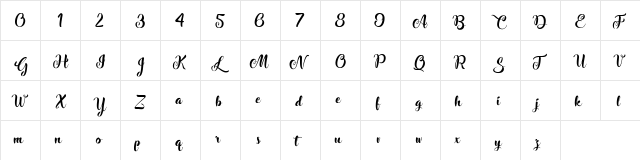
Stardust Adventure Regular
| Foundry | Octotype |
| Designer | Octotype |
Design Context for Stardust Adventure Typeface
Stardust Adventure is a composed and adaptable typeface that performs quietly and consistently across a wide range of design contexts.